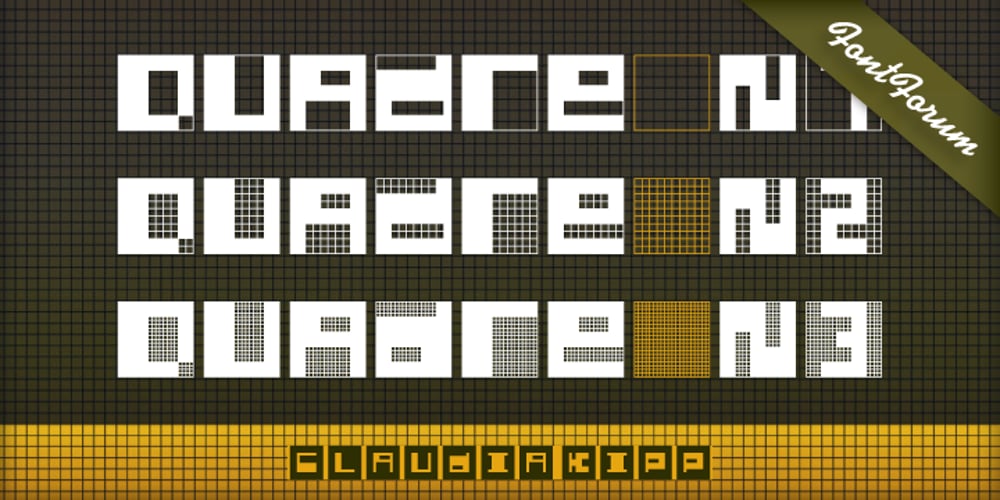
Quadre
Quadre font
Quadre Font Family was designed by Claudia Kipp and published by URW Type Foundry. Quadre contains 3 styles and family package options. FontForum Quadre, another new font by Claudia Kipp, comes in three styles, which are defined by squares of the inner and outer character forms. The character forms, sometimes only recognized at second glance or in context, are created by playing with the white space around them.